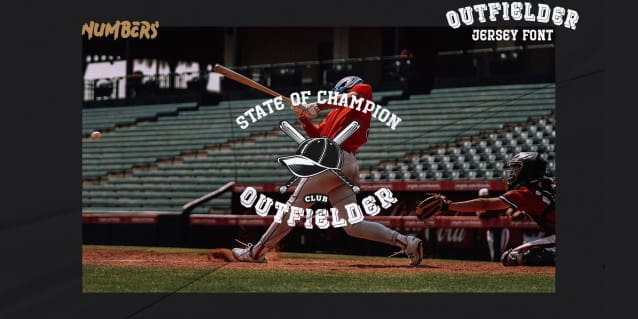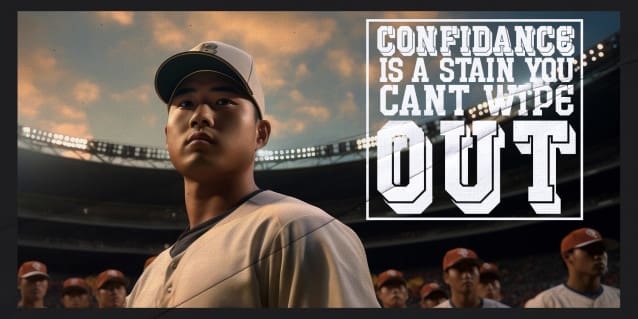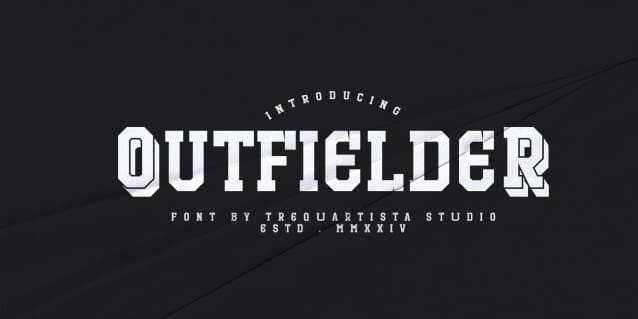
Outfielder Display Font
Outfielder Display Font, is a bold, rough textured and thick lettered slab serif font. It will elevate a wide range of crafting ideas, from cards, to branding, labels and much more.